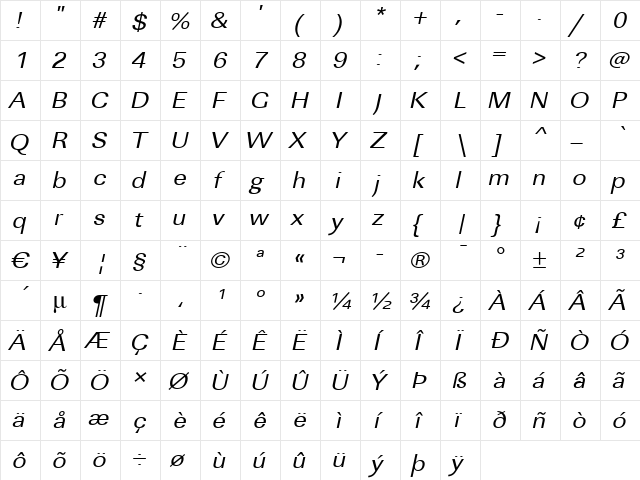
JeffBeckerExtended Italic
Design Context for JeffBeckerExtended Typeface
JeffBeckerExtended offers clean, dependable letterforms without strong stylistic allegiance, making it a practical choice for designers who need flexibility. The slanted form adds forward momentum and visual energy.
Pro Tip: Use JeffBeckerExtended for emphasis, pull quotes, and subheadings where its slanted energy can add rhythm to the layout.